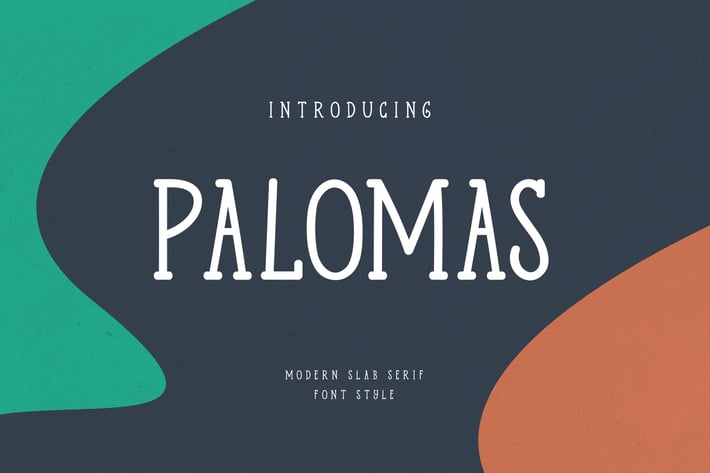
Palomas Casual Serif Font
Palomas is Serif Font and also has casual display font. It can make it easier to convey the message in your design. Use for awesome display, labeling, clothing, movie screen, poster, movie title, gigs, album covers, logos, and much more. It's also could be good for both fun and semi-formal text.